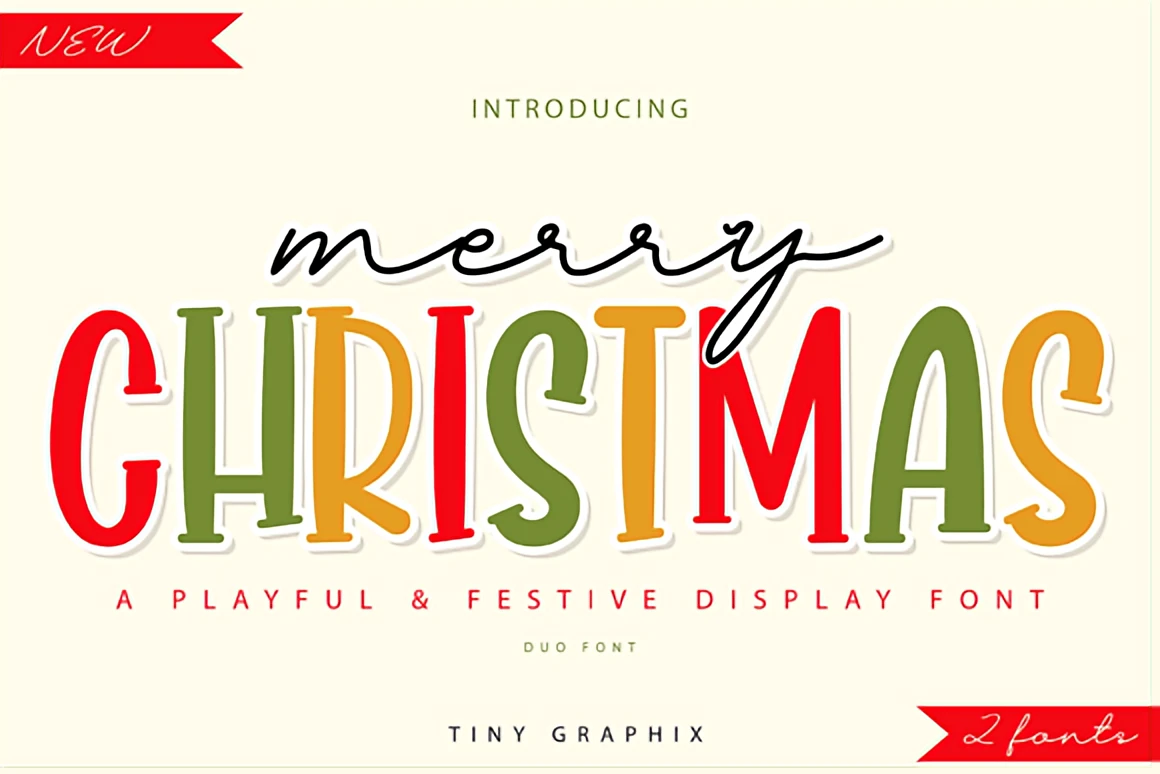
The holidays are a super creative time, and the perfect Christmas font can seriously change your design game. If you’re working on holiday products, branding, an Etsy shop, or just making cards, cool holiday fonts are like a secret spice; they bring warmth, nostalgia, and a great vibe that people love.
Here’s a list of 10 awesome Creative Fabrica Christmas fonts. I picked these out because they’re good quality, have a nice feel, and could be trendy. Every one of these fonts has that holiday vibe that’s just right for branding, Christmas stuff, packaging, crafts, marketing and lots of other projects! Get ready to make your projects better with fonts that you can use commercially. They are easy to read and have that sparkling holiday feel your customers want.
These Christmas fonts are sentimental, magical, and cozy. They can make all holiday looks feel real. Jump in and find styles that will help your holiday designs look great.
1. Merry Christmas – Elegant Script Style
The Merry Christmas Duo Font is a fun set of typefaces made to spread holiday happiness and work for creative stuff all year. This cute duo has two fonts that go well together: a strong, happy Christmas display font and a fancy handwritten holiday script. They’re great for crafters, designers, and anyone who likes nice, expressive holiday lettering.
The display font has a playful holiday feel, so it’s good for Christmas cards, sublimation designs, T-shirts, mugs, ornaments, gift tags, party invites, and holiday decorations. Its strong shapes and happy vibe will quickly brighten up any design. The script font adds a fancy handwritten touch, great for sincere greetings, wedding invites, Mother’s Day gifts, fall crafts, Easter projects, beauty brands, and warm seasonal sayings.
This Christmas duo font works with well-known design programs such as Canva, Procreate, Photoshop, Illustrator, Silhouette, and Cricut (display font). Whether you’re designing holiday sets , social media images, printable decorations, or custom DIY gifts, this duo is super versatile.
Made by Tiny Graphix, the Merry Christmas Duo Font is a must-have for any designer. It brings together holiday charm, fancy lettering, and a warm, handmade feel. Make magical holiday projects, improve your seasonal branding, and enjoy creative freedom all year with this beautiful set of display and script styles.
2. Christmas Snowfall Font
Christmas Snowfall is a charming, handwritten font that adds winter beauty and a festive feel to your important work. Its smooth lines and stylish curves capture the Christmas spirit, making it a great choice for designers, crafters, and anyone wanting a refined holiday touch.
This handwritten font is great for wedding invites, winter cards, social media posts, photo watermarks, logos, ads, product labels, greeting cards, and brand designs. Its soft, flowing style adds a sophisticated yet cozy feel, perfect for both fancy holiday designs and sincere, warm messages.
Christmas Snowfall works well in design apps like Photoshop, Illustrator, Canva, Procreate, Silhouette, and Cricut (as a standard script). Whether you’re making festive sayings, creating custom gifts, designing elegant winter invites, or developing a visual style for the holidays, this font gives a classy look.
It’s versatile enough for modern branding, simple layouts, high-end product designs, or special Christmas cards. Every line adds a touch of snowy beauty, changing regular text into appealing, seasonal artwork. Use Christmas Snowfall to bring grace, charm, and timeless handwritten beauty to your creative projects—it’s the perfect winter font for designers who want their holiday work to stand out.
3. Christmas Mozart Font
Christmas Mozart is a charming Christmas serif font inspired by lively, bouncy calligraphy. Designed to bring a festive, creative energy to your work, it adds a playful yet elegant touch to any holiday project. Its smooth curves and clean outlines give every design a warm, aesthetic style that stands out.
This versatile serif is ideal for holiday book covers, posters, packaging, merchandise, wedding invitations, logotypes, social media posts, and seasonal branding kits. With its retro-chic character and soft, festive flair, Christmas Mozart is the perfect typographic asset for creative lettering, bold messages, and imaginative Christmas designs.
4. Christmas Lights – Decorative Light-String Font
Christmas Lights is a handwritten font with a modern feel, taking cues from traditional calligraphy. Its smooth, balanced lines create a pleasant and refined appearance, adding a polished, up-to-date touch to any design. With its crisp shapes and expressive style, this font draws attention to the appeal and originality of your holiday work.
Christmas Lights works great for holiday cards, gift labels, social media content, branding, invites, and holiday-themed crafts. This font gives a gentle, handmade feel that is both fashionable and sincere. It’s a flexible choice for designers wanting a lovely, inventive font that adds seasonal warmth to any project.